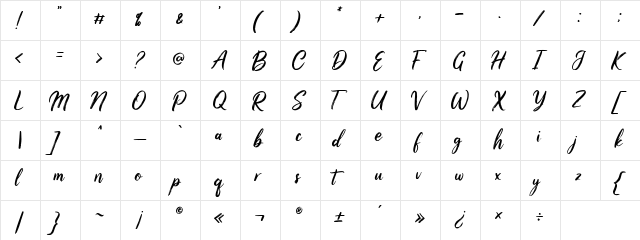
Stellani Demo
Design Context for Stellani Typeface
Stellani is a composed and adaptable typeface that performs quietly and consistently across a wide range of design contexts.
Pro Tip: Pair Stellani with a font of contrasting weight or personality to build a more expressive typographic hierarchy.